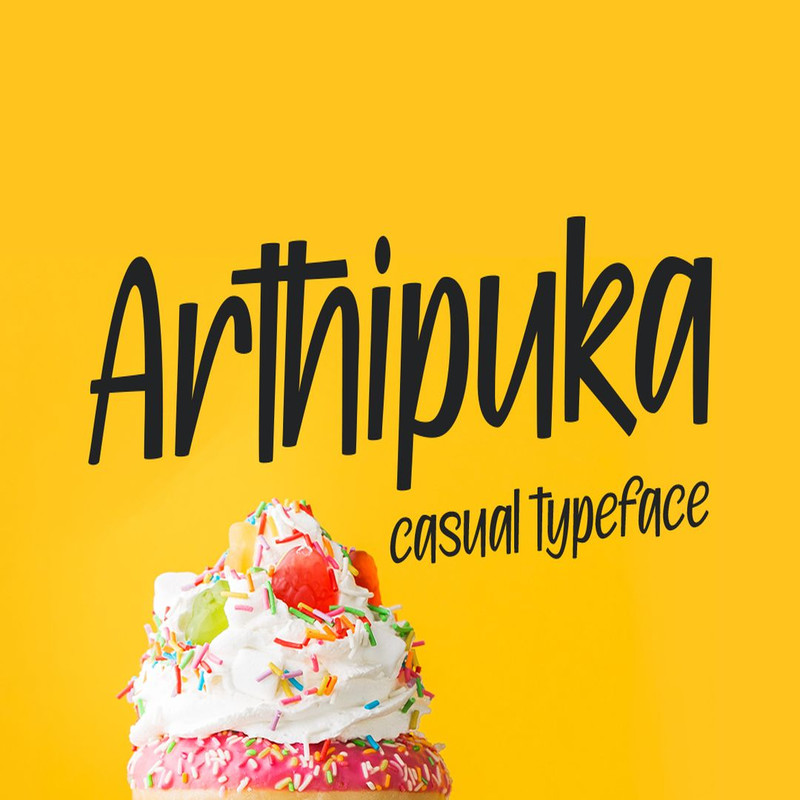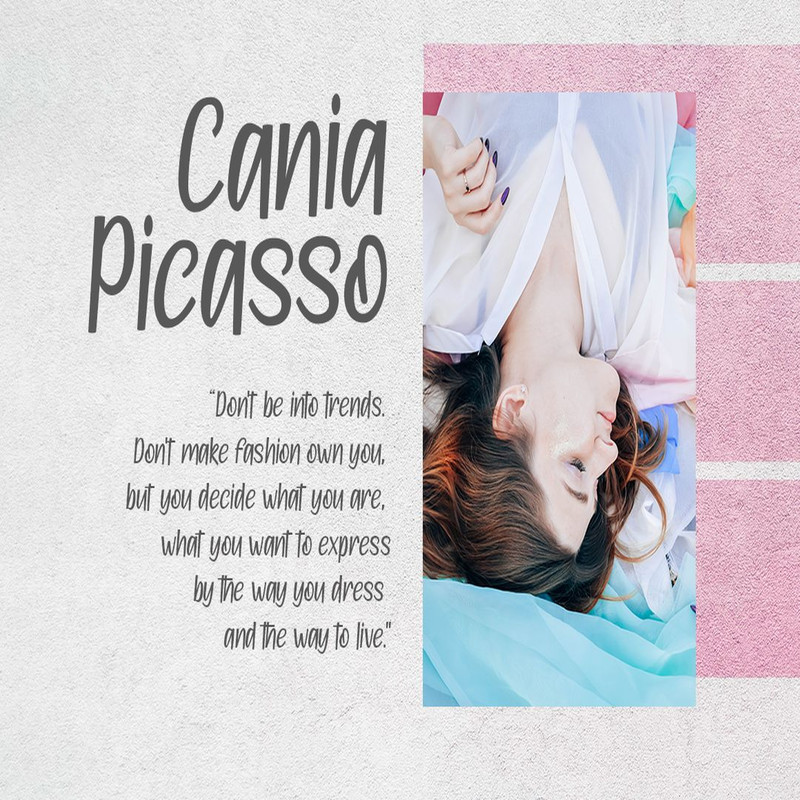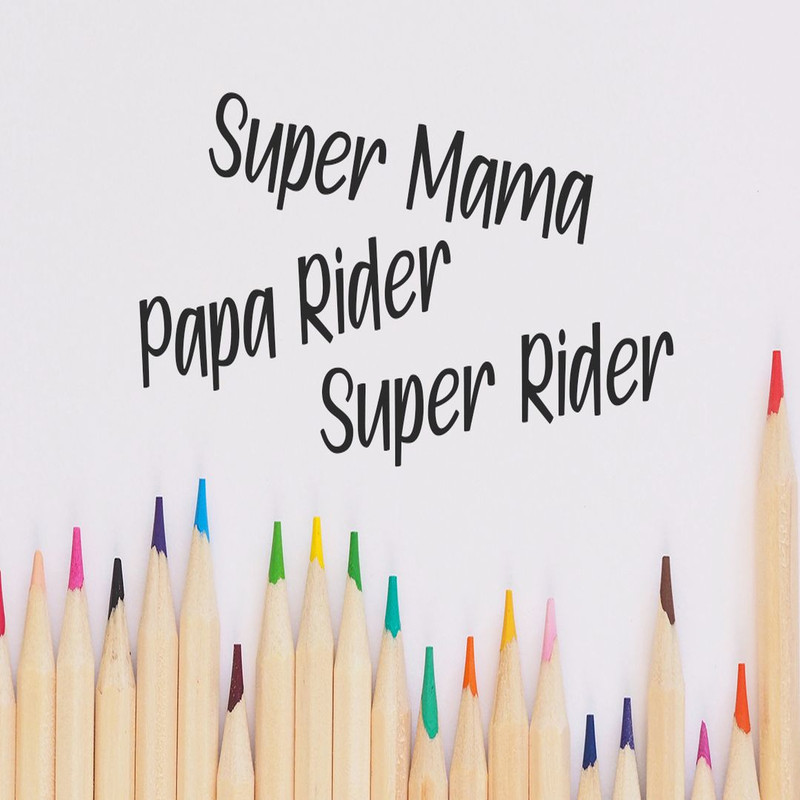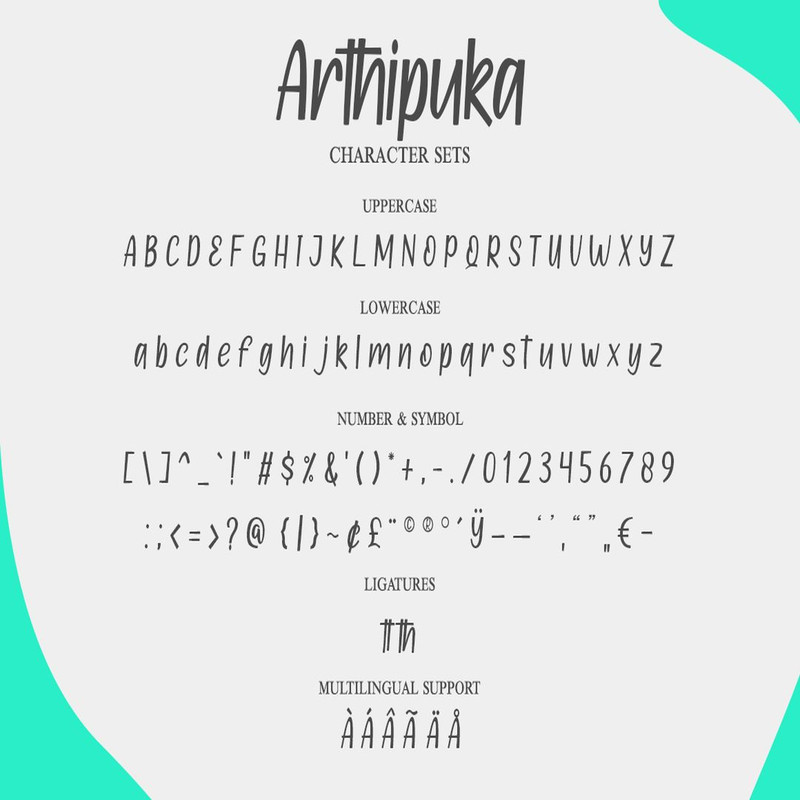
Arthipuka – Casual & Fun Typeface Trending Fonts - Digital Font
A casual handcrafted typeface with fun and childish style, this is Arthipuka. Presented to you with complete uppercase, lowercase, number, punctuation, and also support multi language. Arthipuka is great for comic, kids project, or anything that needs casual feels.
Arthipuka – Casual & Fun Typeface Trending Fonts - Digital Font
A casual handcrafted typeface with fun and childish style, this is Arthipuka. Presented to you with complete uppercase, lowercase, number, punctuation, and also support multi language. Arthipuka is great for comic, kids project, or anything that needs casual feels.